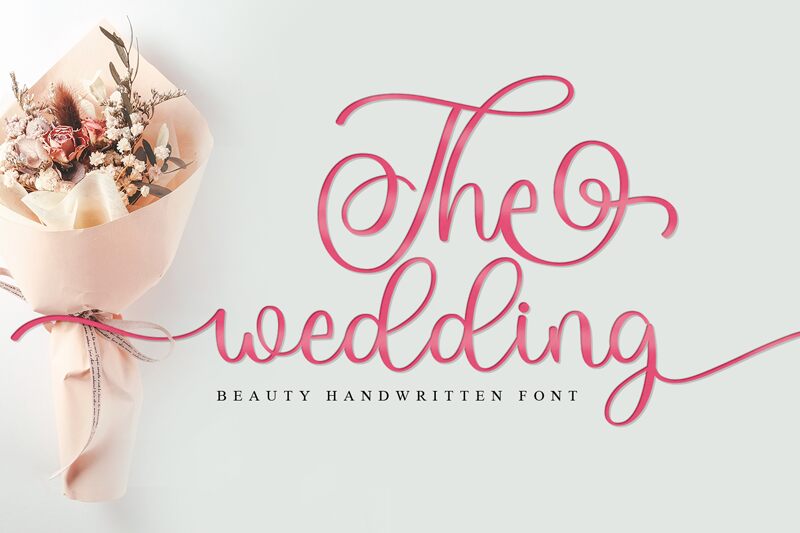
The wedding
The Wedding font is a light, calligraphy script designed by Niyos. Perfect for wedding invitations, stationery, quotes and more, this beautiful font will make any project stand out.